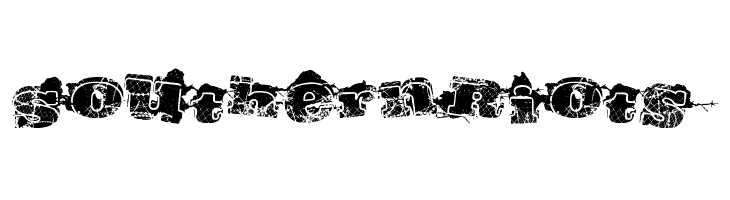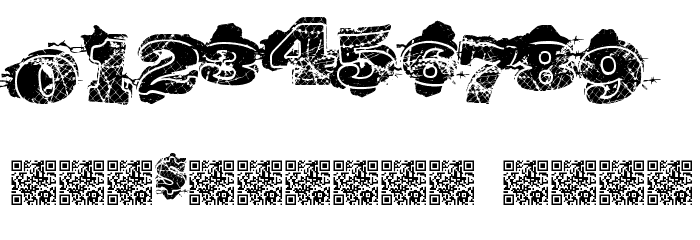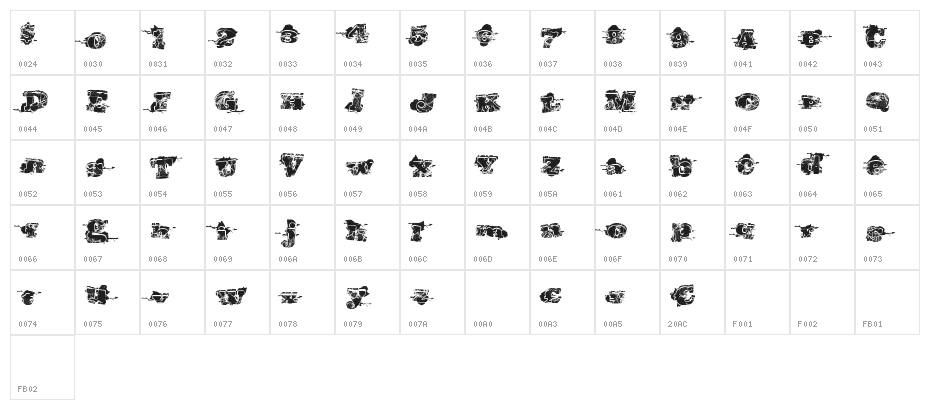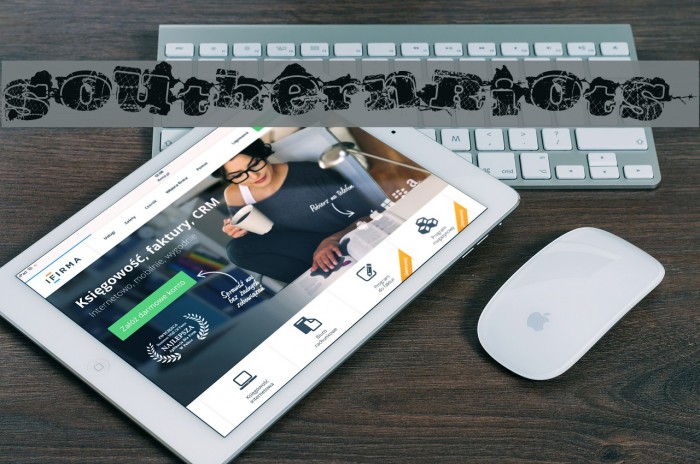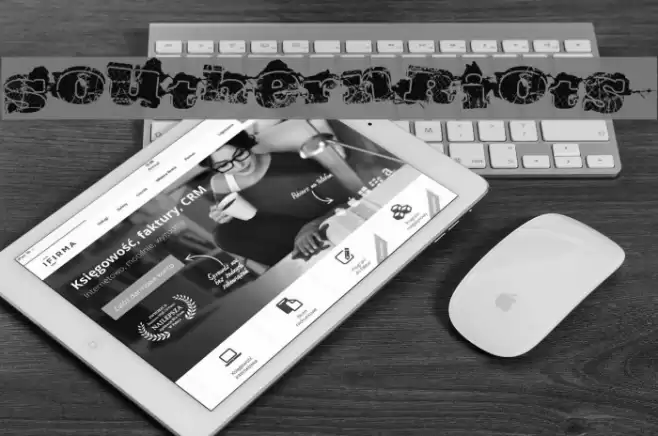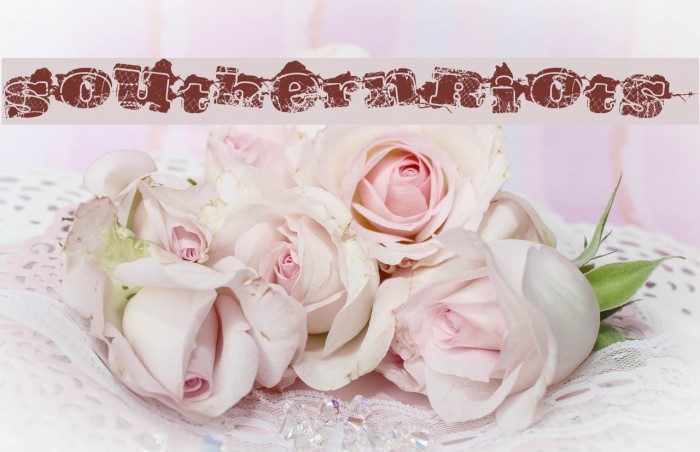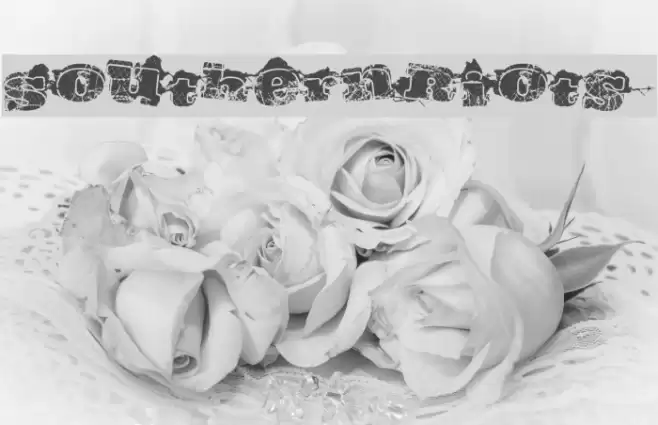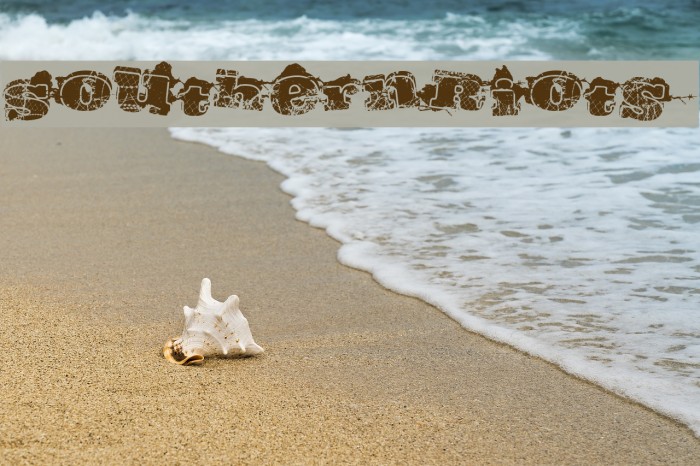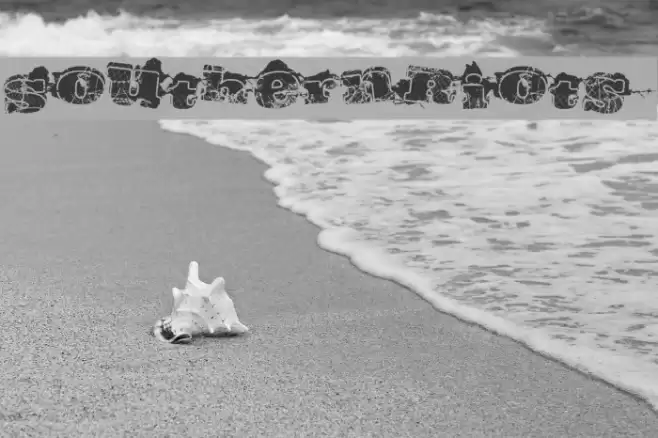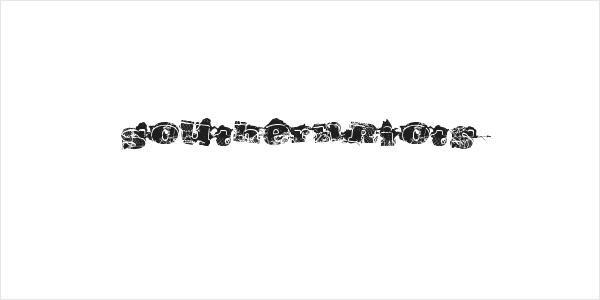
SouthernRiots Font
SouthernRiots Description
This font features a distressed and grungy style, with each character appearing as if it has been weathered or eroded over time. The letters are bold and heavily textured, giving them a rough, edgy appearance. The irregular outlines and scattered speckles create a sense of chaos and movement, reminiscent of graffiti or urban decay. Despite the rugged look, the characters maintain a consistent structure, ensuring readability. The font includes both uppercase and lowercase letters, numbers, and a selection of special characters, all sharing the same distressed aesthetic.
| Overall Style | Grunge, Urban, Edgy |
| Use Case | Logos, Posters, Album covers |
| Proposed Projects | Ideal for music album covers, streetwear branding, event posters, or any project needing an edgy, rebellious vibe. |